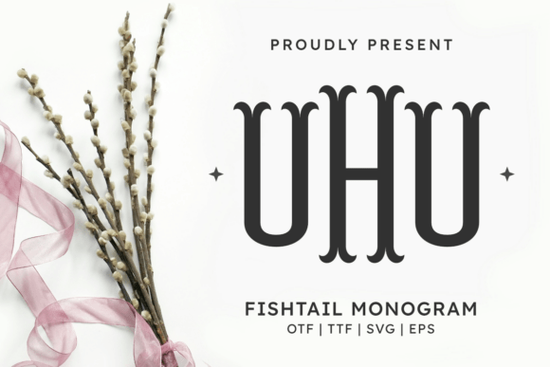
If you're looking for a monogram font that feels both playful and polished something that stands out on t-shirts, mugs, or wall art without trying too hard you’ll likely enjoy the Fishtail Monogram Regular Font. It’s not overly ornate, but it has just enough personality: subtle fishtail-inspired flourishes at the ends of letters give it a breezy, summery rhythm. That quiet charm makes it especially useful for crafters who want their designs to feel handmade not templated.
What kind of projects work best with this font?
The Fishtail Monogram Regular Font shines where personalization meets simplicity. Think baby onesies with initials, minimalist tote bags for small boutiques, or custom keychains for wedding favors. Because it’s a monogram-style font (designed to highlight one or two letters), it works especially well for logos, monogrammed towels, or embroidered sweatshirts. Unlike script fonts that can be hard to cut or embroider, its clean lines and open spacing hold up well in Cricut and Silhouette projects even at smaller sizes.
It also pairs nicely with bolder display fonts when you need contrast. For example, try pairing it with the College Retro Font for a vintage campus vibe on a t-shirt, or layer it under a headline set in Ransom Note Magazine Font for a fun, editorial twist on greeting cards.
How does it compare to other monogram fonts on Creative Fabrica?
Monogram fonts vary widely in tone some lean formal, others quirky or ultra-thin. Fishtail Monogram sits comfortably in the middle: friendly but not childish, decorative but not fussy. Compare it to Kabisat Font, which has stronger geometric structure and sharper angles great for modern branding but less soft for baby apparel. Or consider It’s Me Hello Regular Font, which is more handwriting-like and casual. Fishtail gives you something in between: structured enough for consistency across products, yet distinctive enough to feel intentional.
Unlike many monogram fonts that only include uppercase initials, this one includes full character sets lowercase, numbers, and basic punctuation so you’re not limited to just “J + M” on a wedding towel. You can add dates, short phrases like “est. 2024”, or even tiny taglines beneath a monogram.
Where else have people used it successfully?
A few real examples from Creative Fabrica users:
- A small-batch candle maker used it for monogrammed jar labels pairing the font with simple line art fish icons for a coastal theme.
- A nursery boutique added it to organic cotton baby blankets, using just the first initials of each baby’s name in soft sage green.
- A local coffee shop printed it on ceramic mugs alongside their logo using the font for “Brewed by [Initials]” as a rotating staff feature.
It’s also been spotted on vinyl decals for laptops, embroidered patches for denim jackets, and even hand-lettered quote prints where designers traced over the font for a hybrid analog-digital look.
One thing to keep in mind before downloading
This is a monogram font not a full decorative script. So if you’re planning to set full paragraphs or long product descriptions in it, you’ll want to pair it with a neutral sans-serif or serif body font instead. Its strength is in impact, not endurance. Use it where attention is needed: logos, names, tags, or focal points not footnotes.